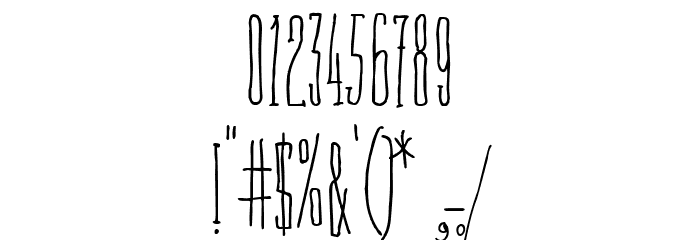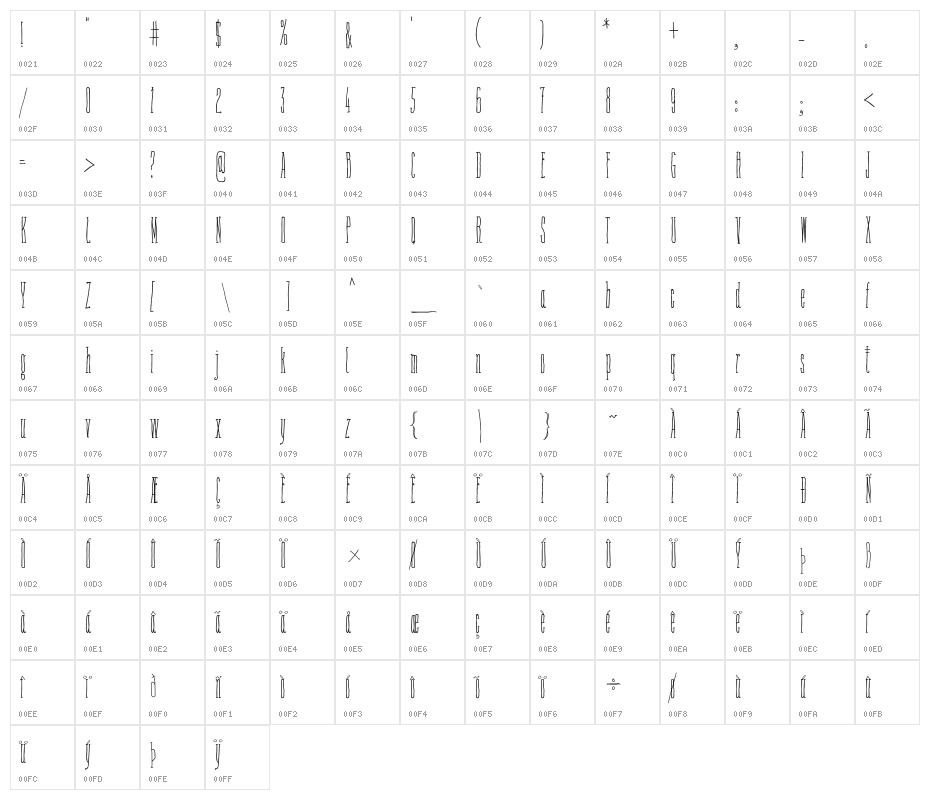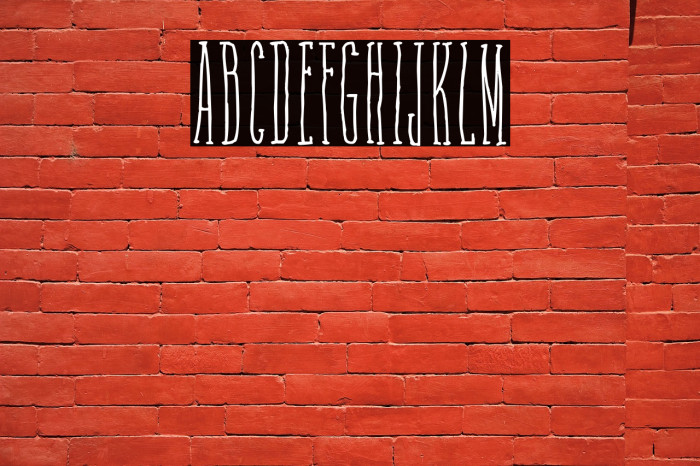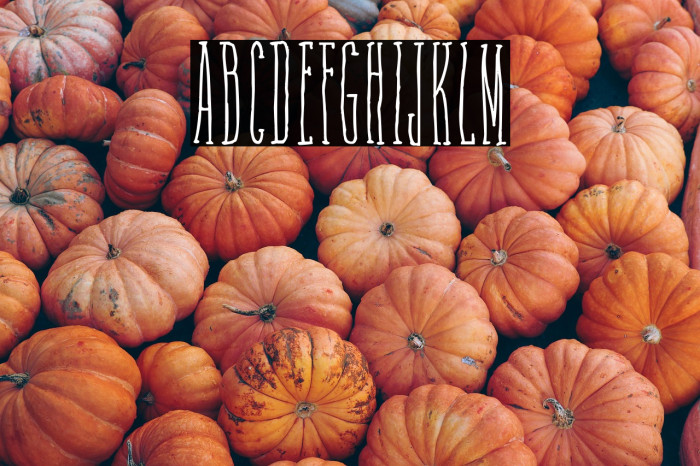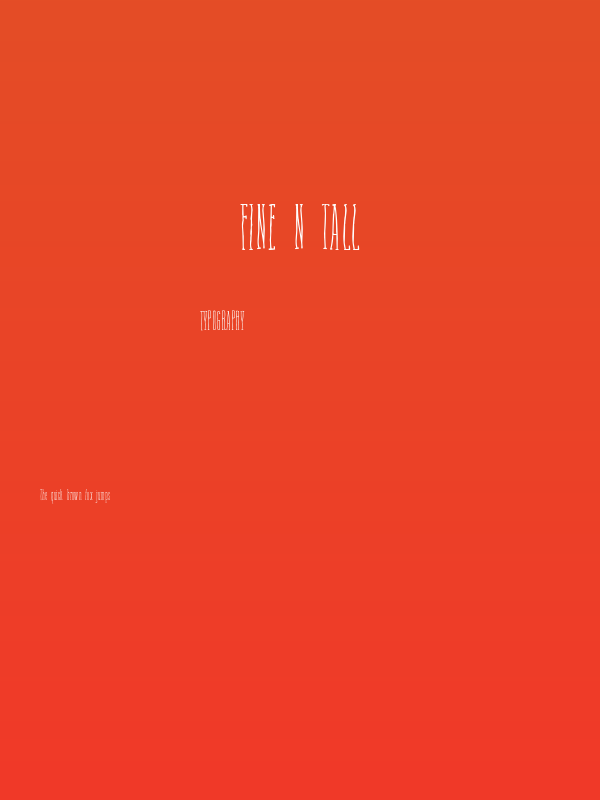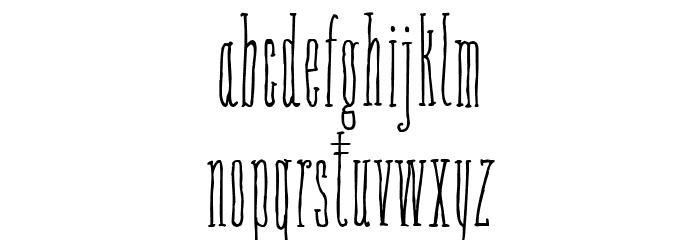
Fine N Tall Font
Fine N Tall Description
This font features an elongated and narrow design, characterized by its tall and slender letterforms. The strokes are consistent in width, giving it a uniform appearance. The uppercase letters are particularly striking, with a vertical emphasis that draws the eye upward. The lowercase letters maintain the same narrow proportions, creating a cohesive look across the typeface. The numerals and special characters follow the same design principles, ensuring a harmonious overall style. This font's unique structure makes it stand out, offering a distinctive aesthetic that is both modern and slightly whimsical.
| Overall Style | Modern, Whimsical |
| Proposed Projects | Ideal for projects that require a unique and eye-catching typeface, such as posters, book covers, or branding materials. |